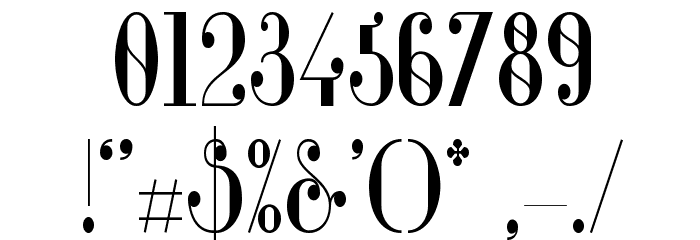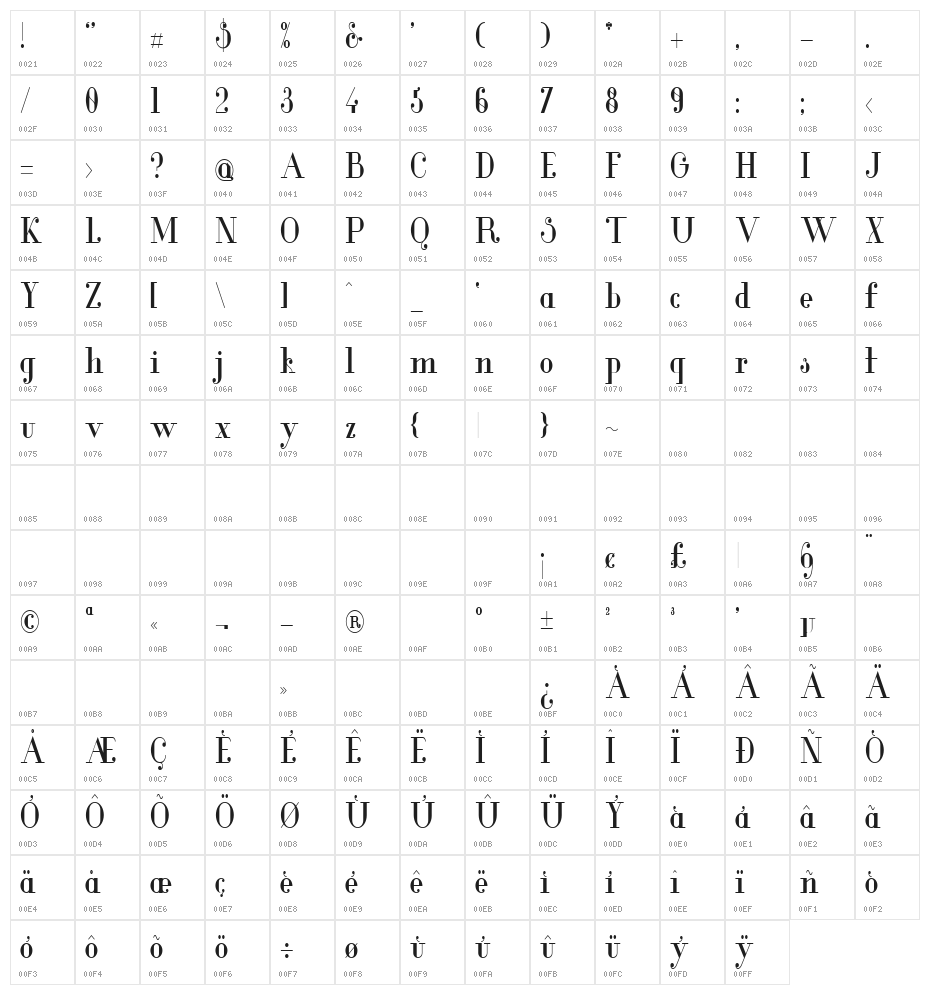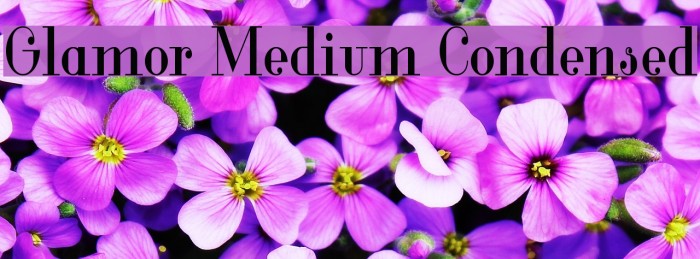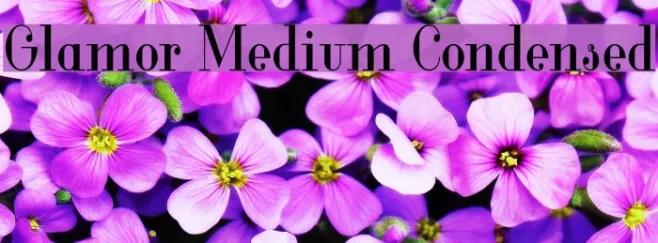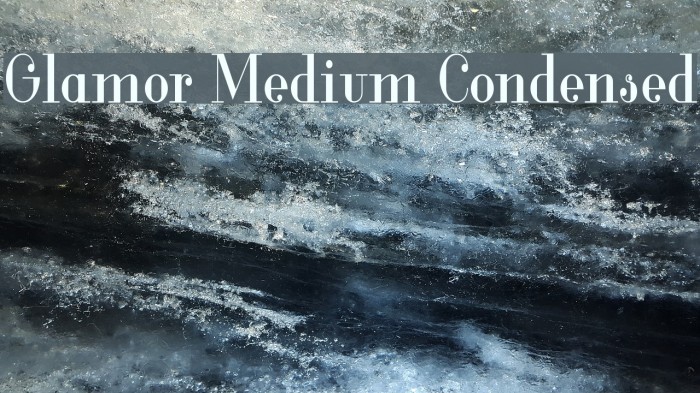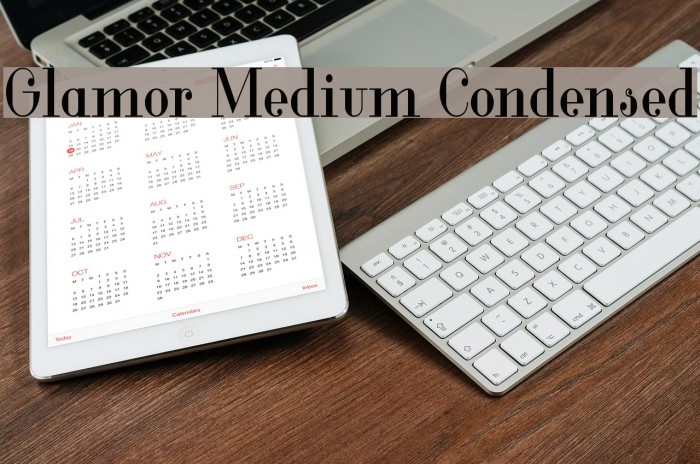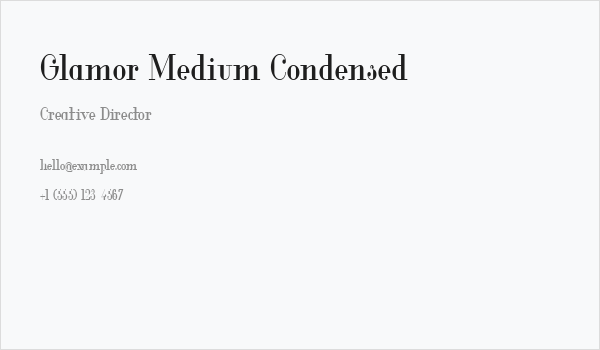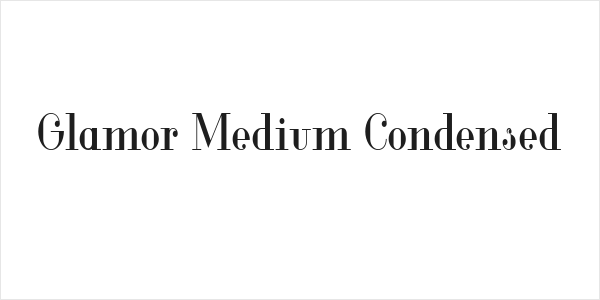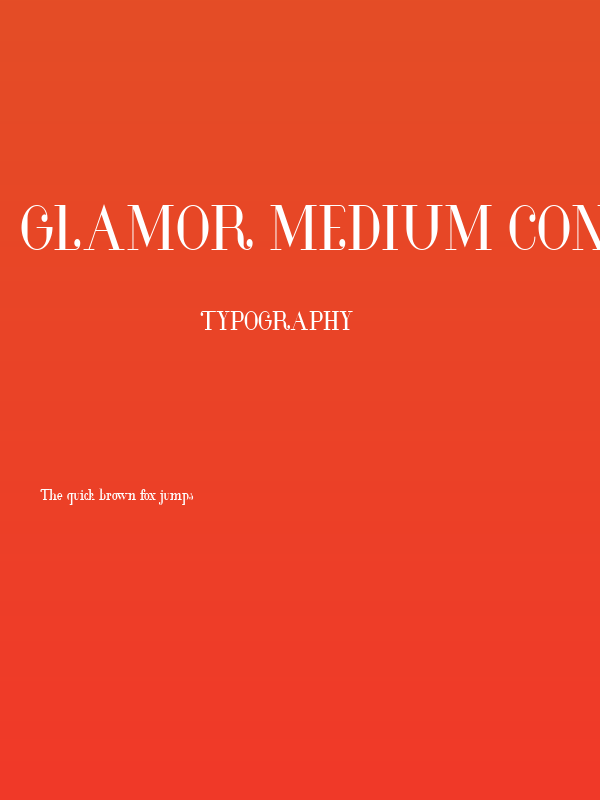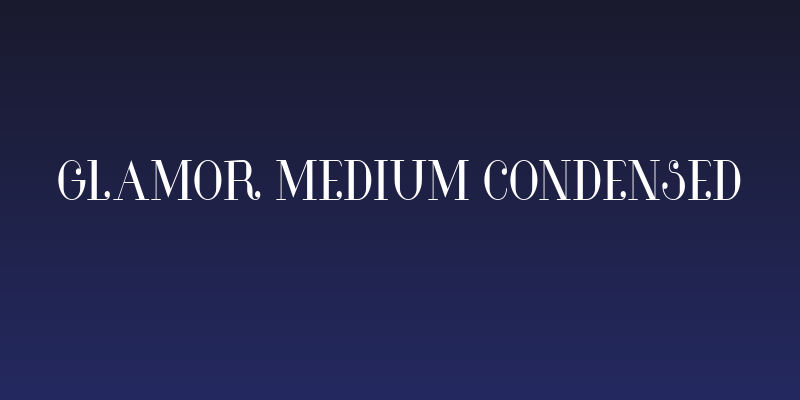
Glamor Medium Condensed Font
Glamor Medium Condensed Description
This font features a sophisticated and elegant design with a condensed structure. The characters exhibit a high contrast between thick and thin strokes, giving it a refined and stylish appearance. The uppercase letters are tall and slender, while the lowercase letters maintain a consistent flow with subtle curves. The numerals are distinct and harmonize well with the overall aesthetic. Special characters are designed with flair, adding to the font's decorative appeal. This typeface is ideal for projects that require a touch of class and modernity.
| Proposed Projects | Ideal for luxury branding, fashion magazines, elegant invitations, and high-end product packaging. |